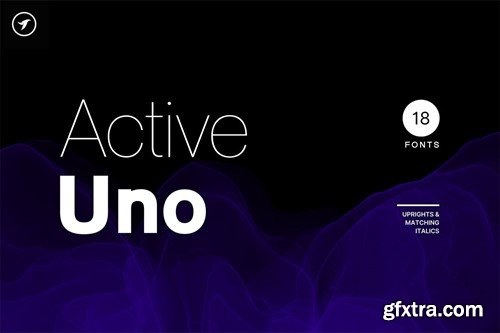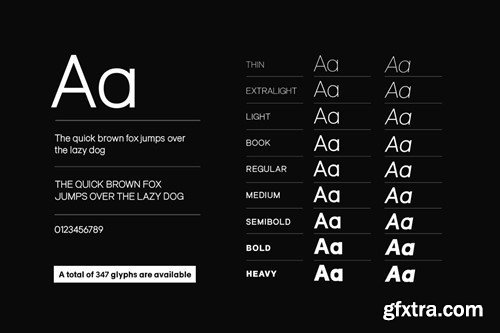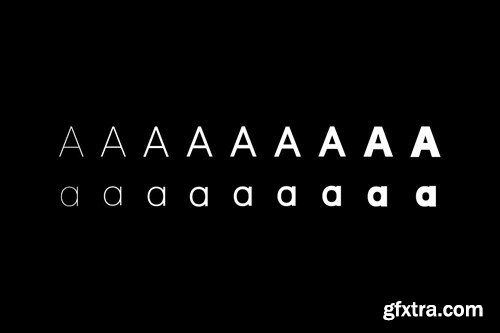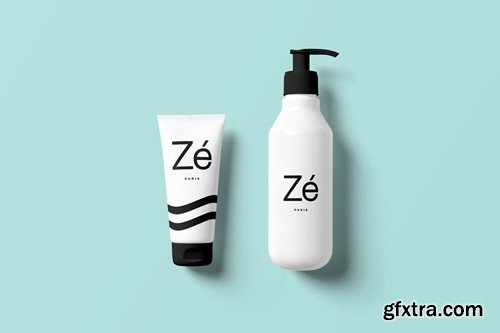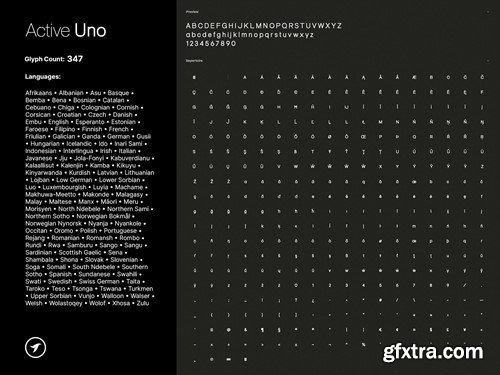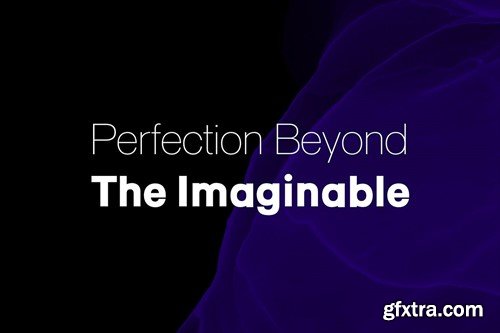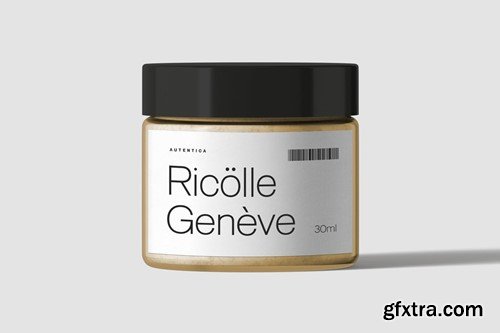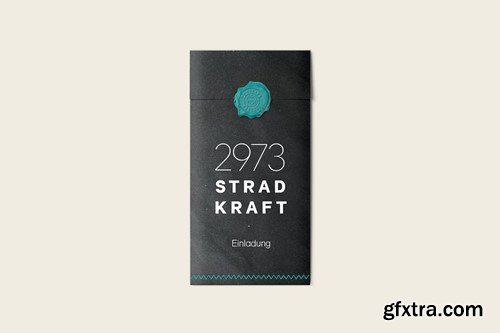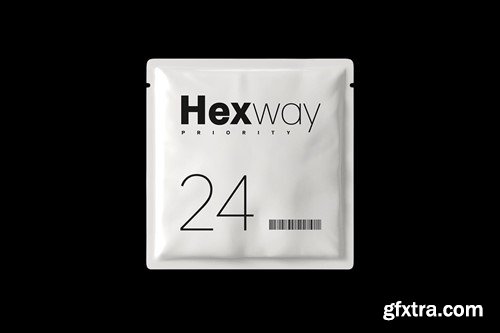
Active Uno - 现代无衬线字体家族 FRF9SWR
Active Uno is the epitome of modernity and timelessness in the world of font families. With its clean and well-balanced design, and an extensive collection of 18 fonts in the family, this typeface is sure to inspire you to create something truly remarkable. Active Uno is the third typeface from our Uno class font families, which is one of the most advanced and feature-loaded fonts in our portfolio. So, go ahead, and use Active Uno to bring your design ideas to life. --- The Active Uno font family is a versatile choice for creating a wide range of designs and textual representations. It's perfect for logos, branding, headlines, corporate identities, and marketing materials for both digital and print platforms. This typeface is an excellent choice for branding, logo and logotype designs, marketing graphics, banners, posters, signage, corporate identities, and editorial design projects. By adding extra letter spacing, it becomes a perfect font for minimalist headlines and logotypes, as demonstrated in the attached promotional designs. --- FEATURES: Active Uno font family includes an extensive collection of 18 fonts in total, with nine upright weights and Italic equivalents of all nine weights as follows: 347 GLYPHS INCLUDED: Handcrafted and designed with powerful OpenType features in mind, each weight includes extended language support with Western European, Central European, and South Eastern European sets. A total of 347 glyphs are available. EXTENSIVE LANGUAGE SUPPORT: Afrikaans • Albanian • Asu • Basque • Bemba • Bena • Bosnian • Catalan • Cebuano • Chiga • Colognian • Cornish • Corsican • Croatian • Czech • Danish • Embu • English • Esperanto • Estonian • Faroese • Filipino • Finnish • French • Friulian • Galician • Ganda • German • Gusii • Hungarian • Icelandic • Ido • Inari Sami • Indonesian • Interlingua • Irish • Italian • Javanese • Jju • Jola-Fonyi • Kabuverdianu • Kalaallisut • Kalenjin • Kamba • Kikuyu • Kinyarwanda • Kurdish • Latvian • Lithuanian • Lojban • Low German • Lower Sorbian • Luo • Luxembourgish • Luyia • Machame • Makhuwa-Meetto • Makonde • Malagasy • Malay • Maltese • Manx • Māori • Meru • Morisyen • North Ndebele • Northern Sami • Northern Sotho • Norwegian Bokmål • Norwegian Nynorsk • Nyanja • Nyankole • Occitan • Oromo • Polish • Portuguese • Rejang • Romanian • Romansh • Rombo • Rundi • Rwa • Samburu • Sango • Sangu • Sardinian • Scottish Gaelic • Sena • Shambala • Shona • Slovak • Slovenian • Soga • Somali • South Ndebele • Southern Sotho • Spanish • Sundanese • Swahili • Swati • Swedish • Swiss German • Taita • Taroko • Teso • Tsonga • Tswana • Turkmen • Upper Sorbian • Vunjo • Walloon • Walser • Welsh • Wolastoqey • Wolof • Xhosa • Zulu FONT FILE FORMATS: The pack contains Desktop Fonts (OTF, TTF) and Web Fonts (all EOT, SVG, and WOFF included). HTML & CSS WebFont preset and demo are available in the download pack. --- CREDITS: Typeface designed & distributed by Designova®, made with ♥ in Berlin.